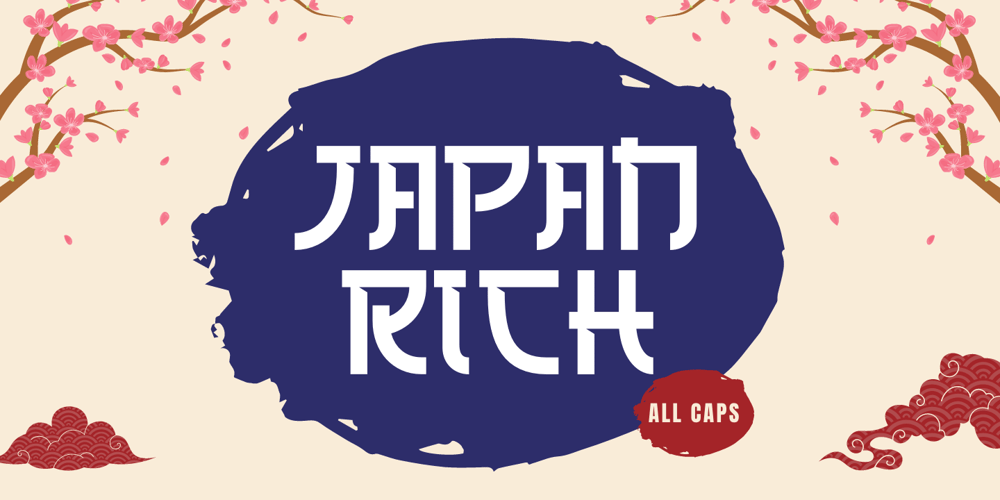
Japan Rich Font Family was designed by Sigit Dwipa and published by Nirmana Visual. Japan Rich contains 1 styles and family package options. Introducing Japan Rich, Inspired by Japanese Kanji Typography. perfect for logos & branding, social media posts, advertisements & product designs.